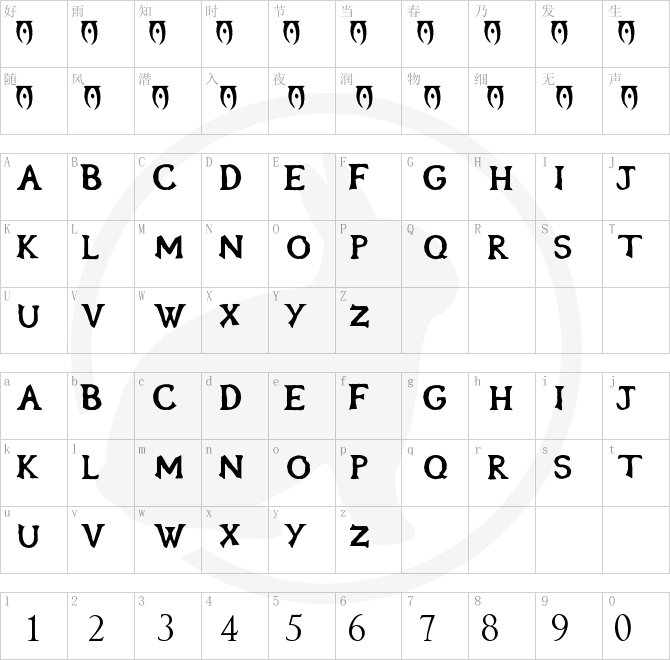
- Font Name:OblivionFont
OblivionFont.ttf is a very beautiful artistic font, OblivionFont.ttf is widely used in the design and printing of various books and pictures,OblivionFont.ttf has a strong visual impact,OblivionFont.ttf is a commonly used font in newspapers, magazines and books, and is used in posters, e-commerce Poster design, store design, logo design, font design and other fields.OblivionFont.